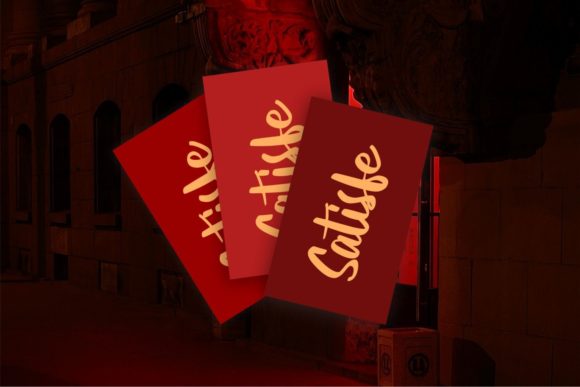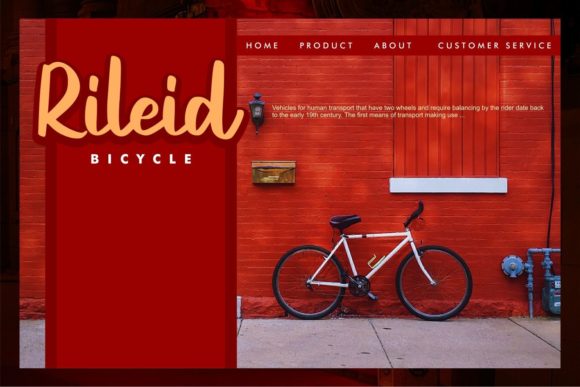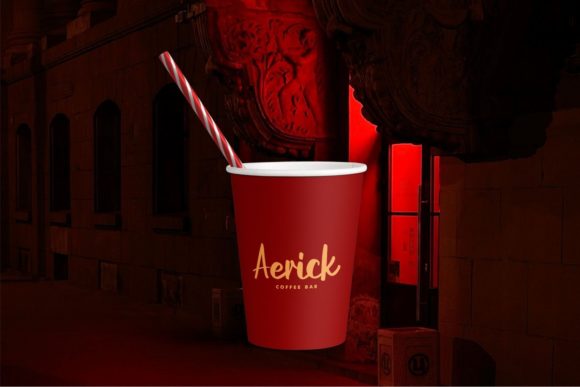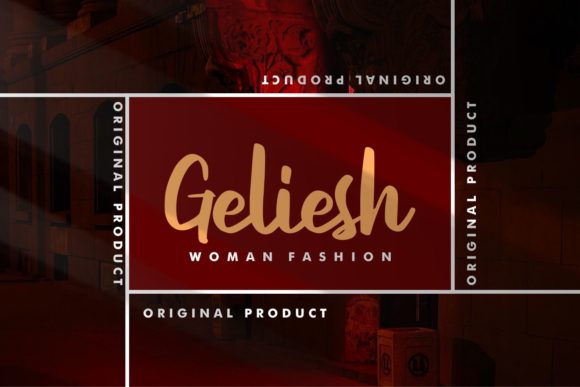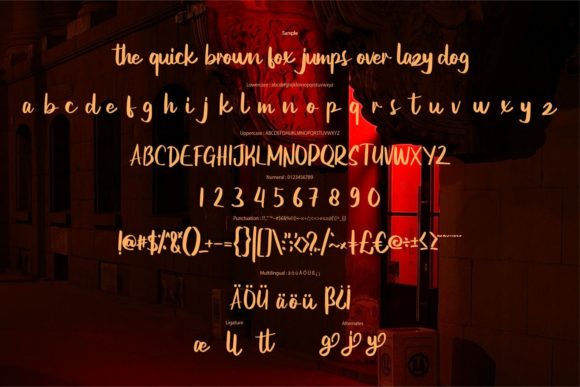
Introducing District Script Font: Elevate Your Designs with Confidence and Style
In the world of typography, a font can make or break a design. It’s the foundation upon which creativity is built, and the right choice can elevate a project from ordinary to extraordinary. For designers and crafters seeking a font that exudes confidence, versatility, and a touch of chic, look no further than the District Script Font. This stylish script font is not just a typeface; it’s a statement piece that can transform any project into a masterpiece.
The Essence of District Script Font
District Script is a modern script font that embodies the perfect blend of elegance and trendiness. Its fluid strokes and carefully crafted letters convey a sense of sophistication and style, making it an ideal choice for a wide range of projects. From branding and advertising to packaging and digital media, District Script Font is versatile enough to fit seamlessly into any design aesthetic.
What Sets District Script Apart
So, what makes District Script Font stand out in a sea of typefaces? The answer lies in its exceptional features:
- Stylish Alternates: District Script offers a range of stylish alternates that allow designers to add a unique touch to their work. These alternates provide the flexibility to customize the font to suit the project’s tone and style.
- Ligatures: The font includes beautifully designed ligatures that connect letters in a way that is both aesthetically pleasing and highly readable. Ligatures add a touch of sophistication to any text, making it perfect for high-end branding and editorial projects.
- Versatility: Whether you’re working on a luxury brand, a creative startup, or a personal project, District Script adapts effortlessly to any design requirement. Its versatility is one of its most compelling features, making it a valuable addition to any designer’s toolkit.
The applications of District Script Font are endless. Here are a few examples of projects where this font truly shines:
- Branding and Logotypes: Create a lasting impression with a custom logo or brand identity that stands out. District Script’s unique style and alternates allow for a tailored approach to branding.
- Advertising and Marketing Materials: From billboards to brochures, this font captures attention and communicates a message of sophistication and style.
- Packaging Design: Elevate product packaging with a font that conveys luxury and quality. District Script is perfect for product labels, packaging inserts, and more.
- Digital Media: Enhance your digital presence with a font that looks great on screen. Use District Script in website headers, social media graphics, and digital advertisements.
Tips for Using District Script Font
To get the most out of District Script Font, consider the following tips:
- Experiment with Alternates and Ligatures: Don’t be afraid to try out different alternates and ligatures to find the perfect combination for your project.
- Pair with Complementary Fonts: District Script pairs well with a variety of fonts. Experiment with different pairings to find the one that best complements your design.
- Adjust Font Sizes and Weights: Play with different font sizes and weights to create visual hierarchy and add depth to your design.
District Script Font is more than just a typeface; it’s a design statement. With its chic and trendy aesthetic, stylish alternates, and ligatures, it’s the perfect match for designers and crafters looking to elevate their projects. Whether you’re working on a branding campaign, a personal project, or anything in between, District Script Font is sure to bring confidence, versatility, and style to your designs. Discover the possibilities with District Script Font today and take your designs to the next level.